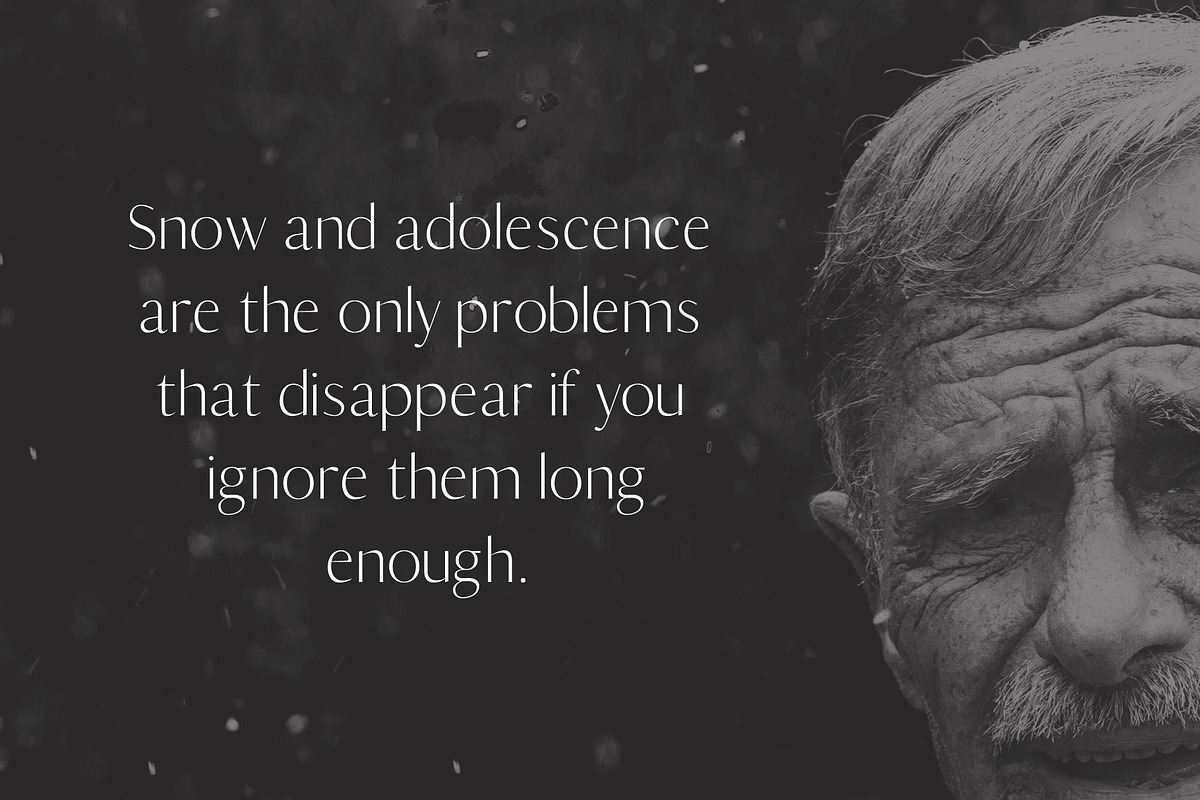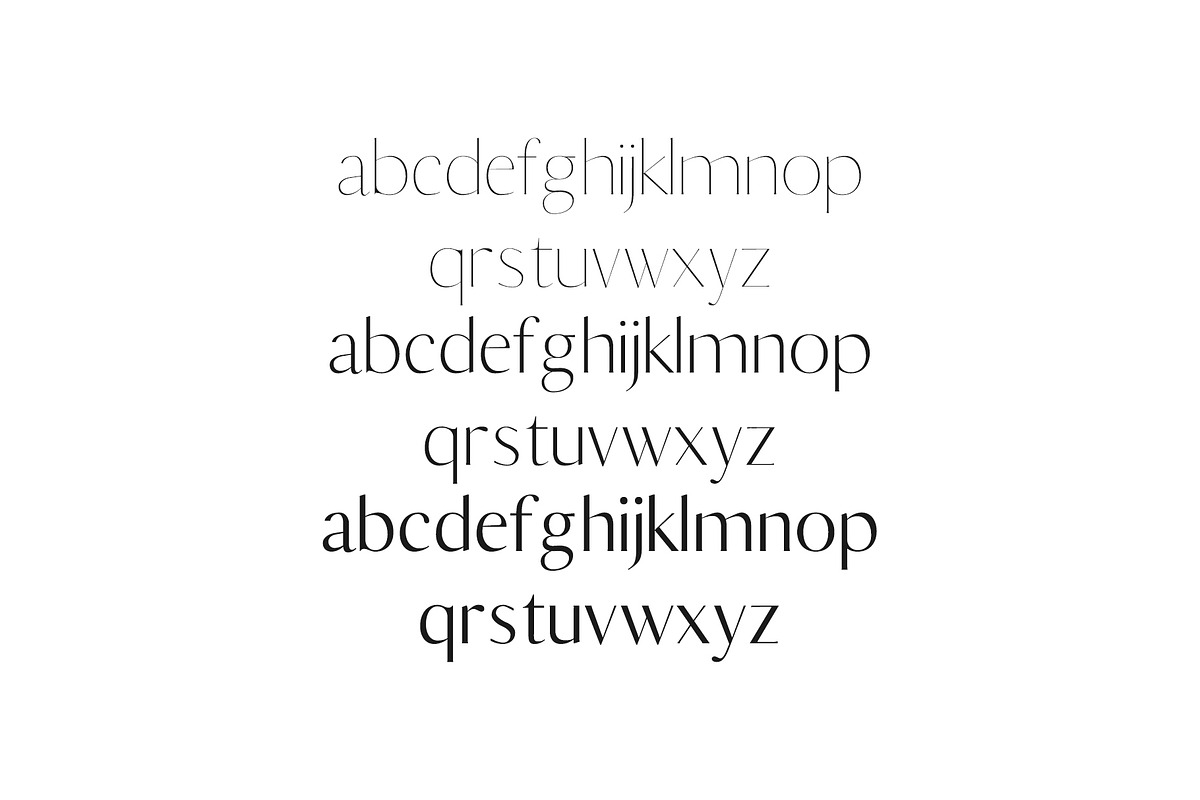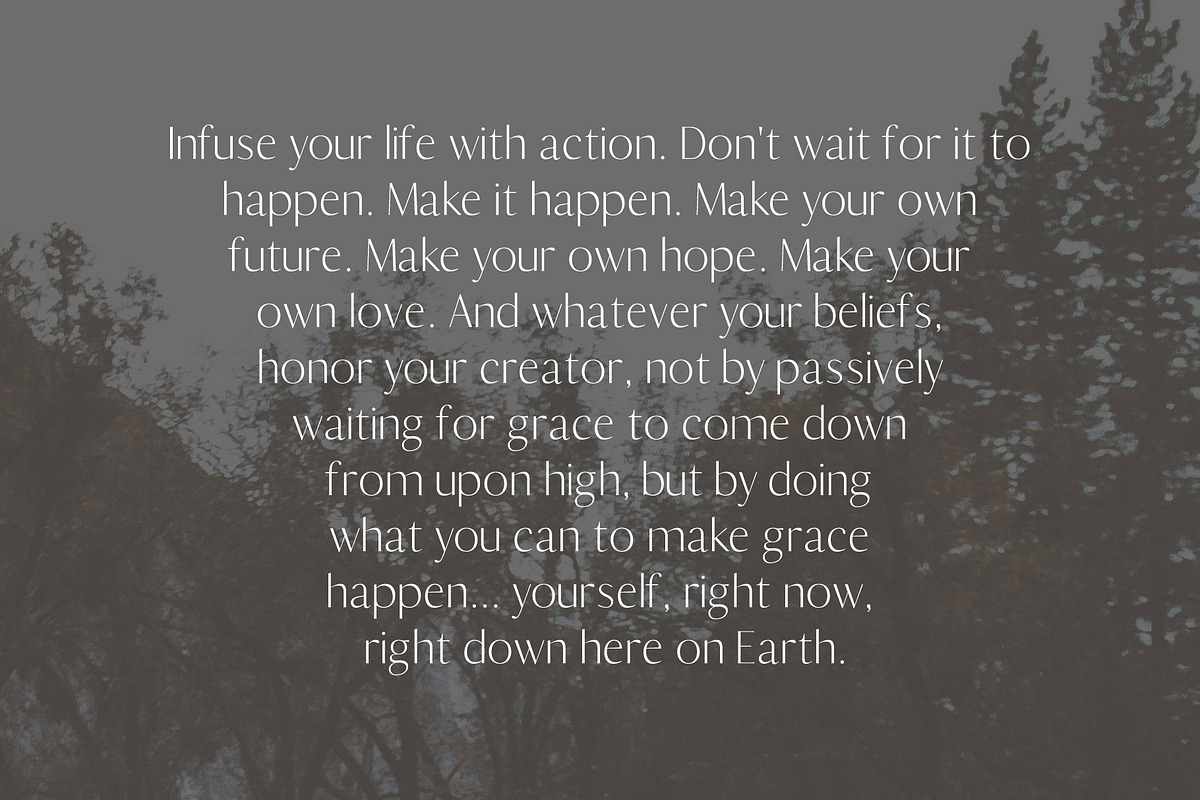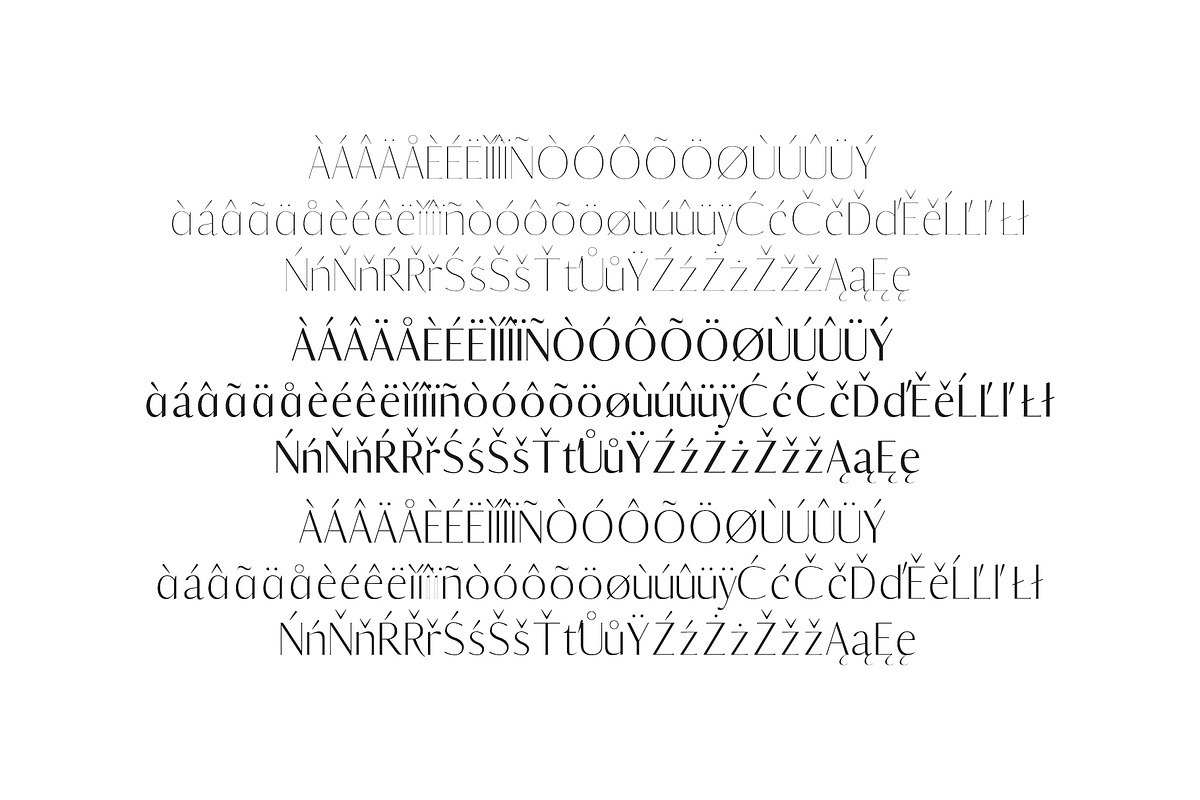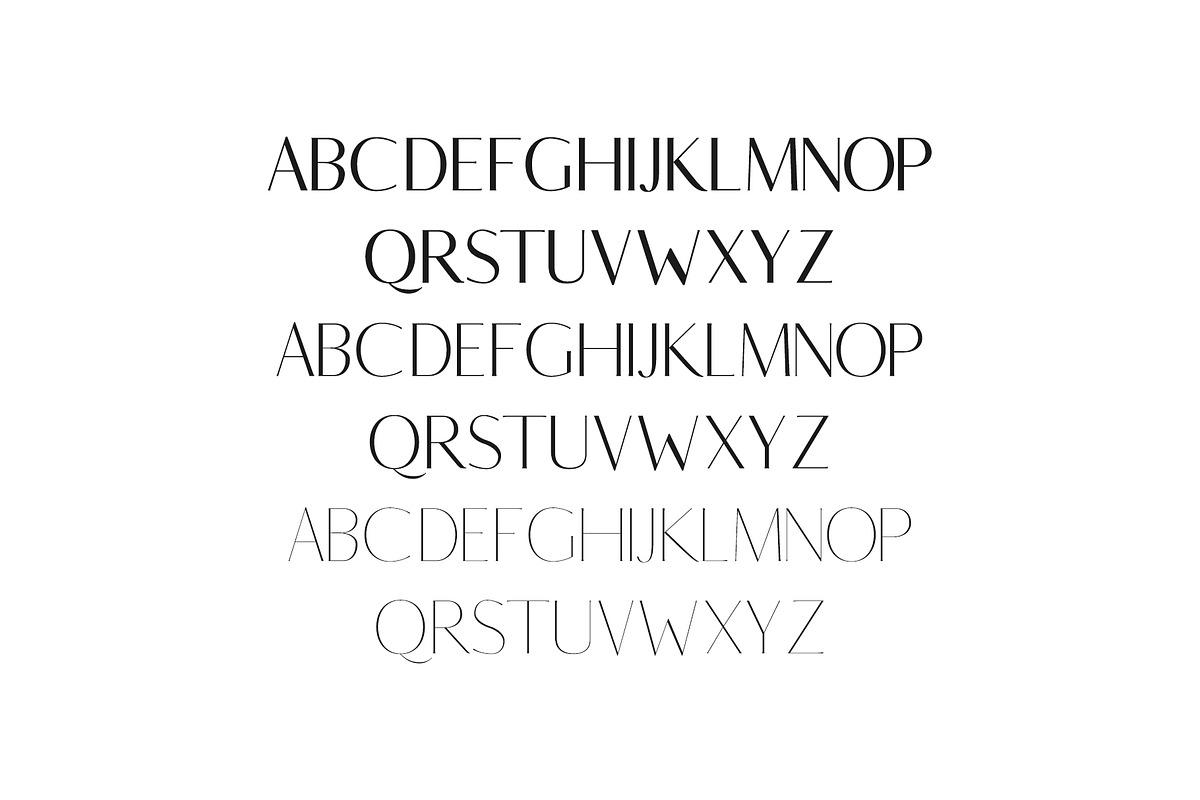
Berton Sans Serif 3 Font Family Pack
Berton Sans Serif 3 Font Family Pack by Creativetacos is a font selected for branding, posters, packaging, typography.
- Includes 3 weights The perfect choice for Modern, Fashion & Magazine Titles.
- Regular, Thin, Light Weights
- Berton Thin
- Berton Light
- Berton Regular
Why Berton Sans Serif 3 Font Family Pack is worth a look
Berton Sans Serif 3 Font Family Pack by Creativetacos fits naturally into Branding, posters, packaging, typography.